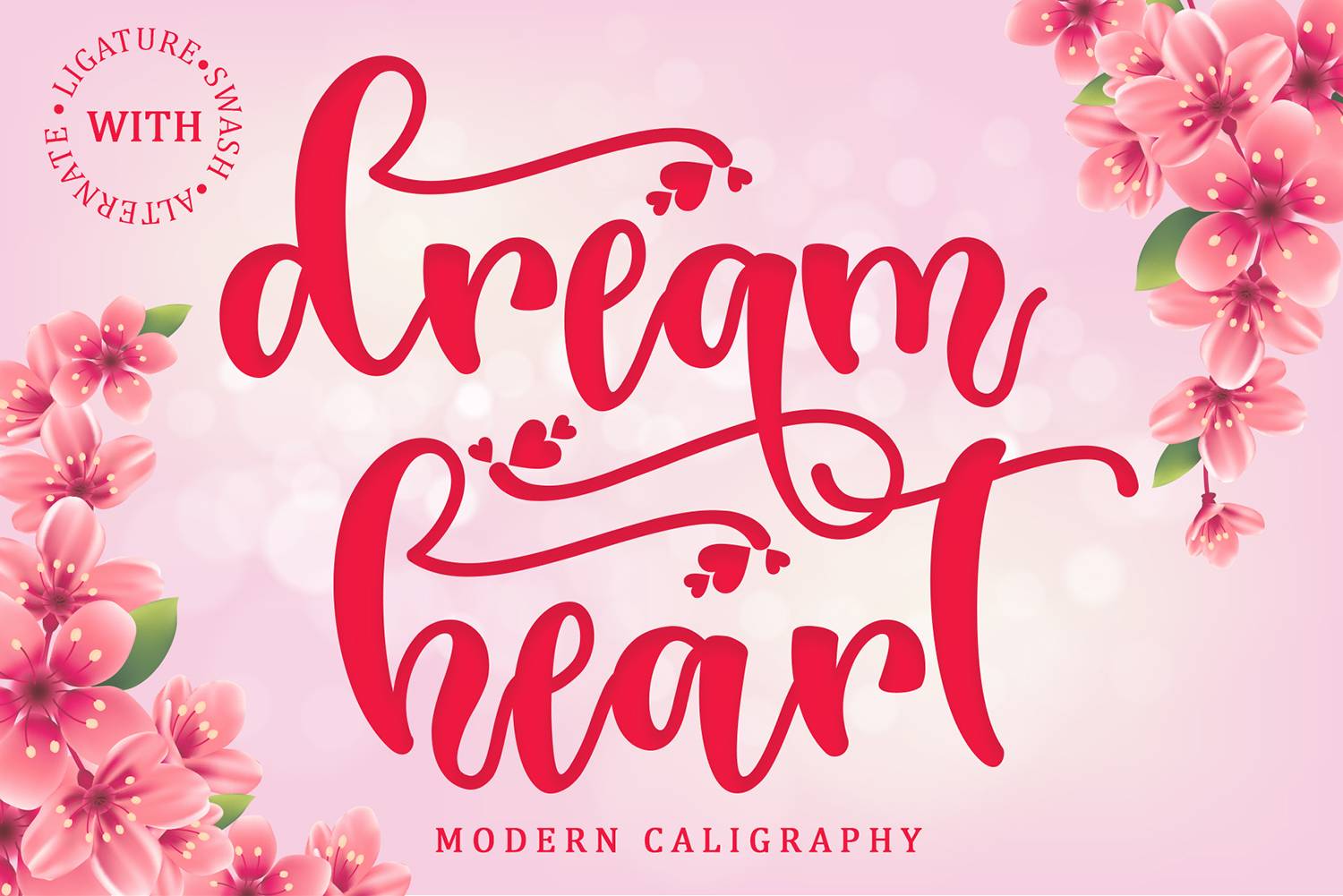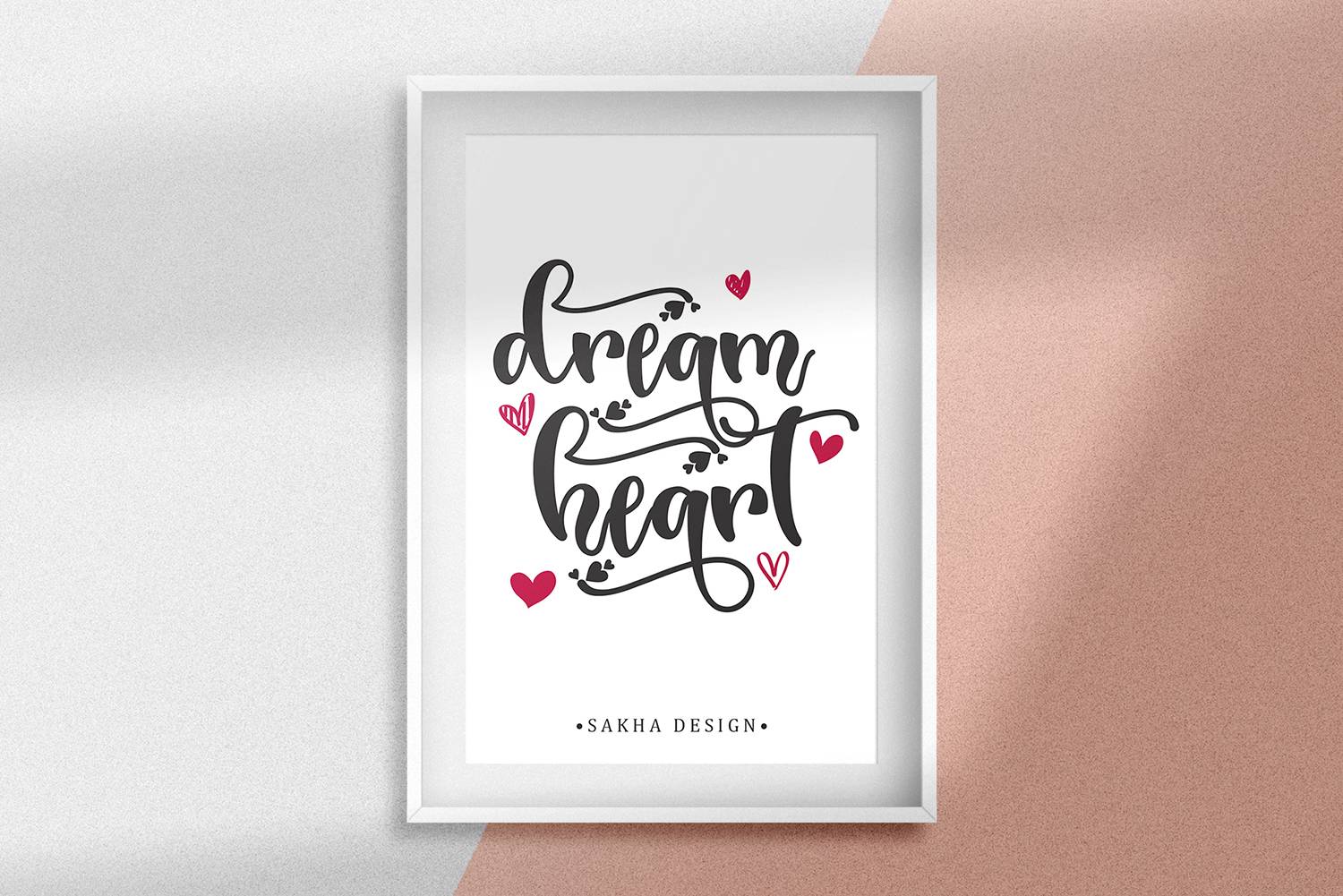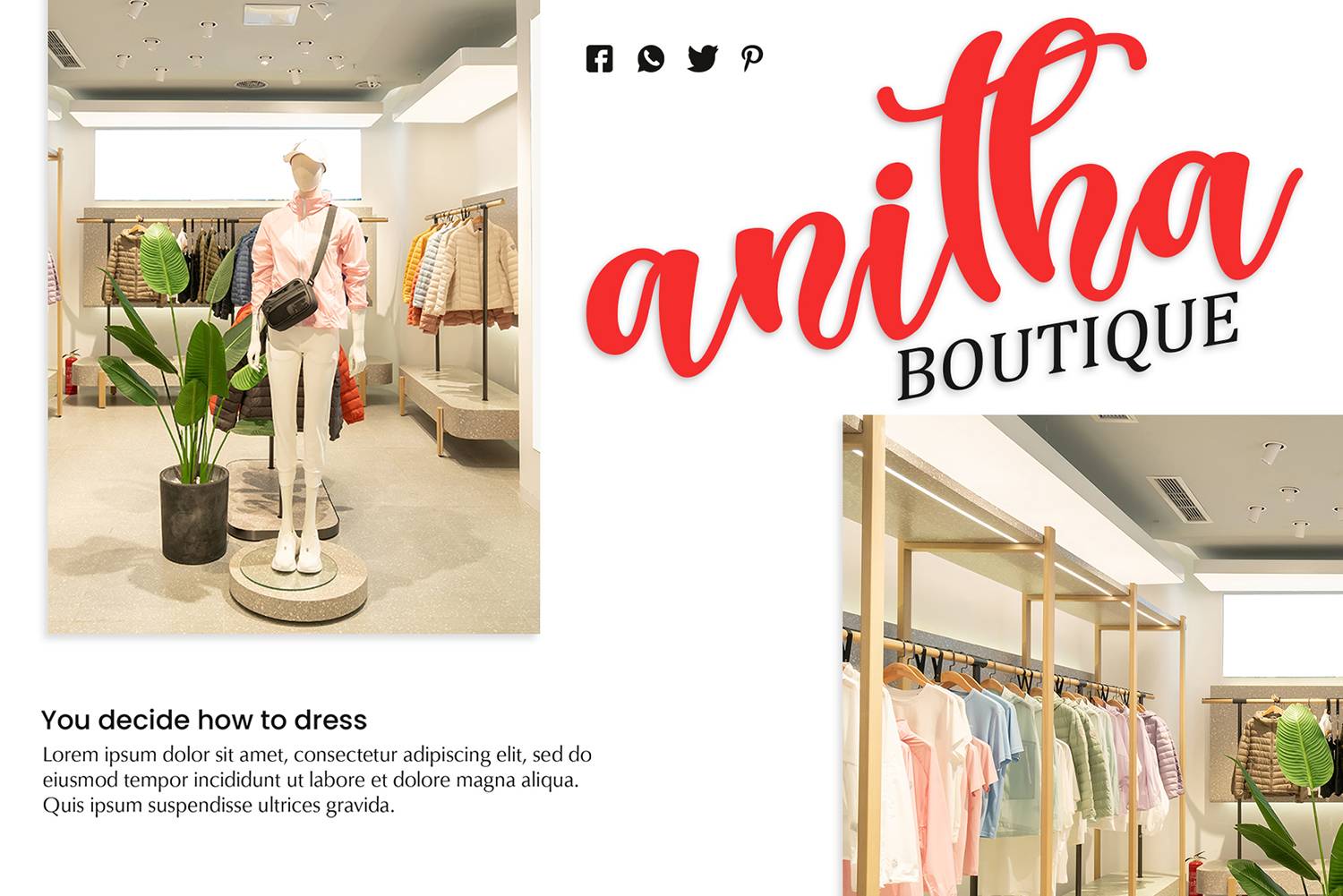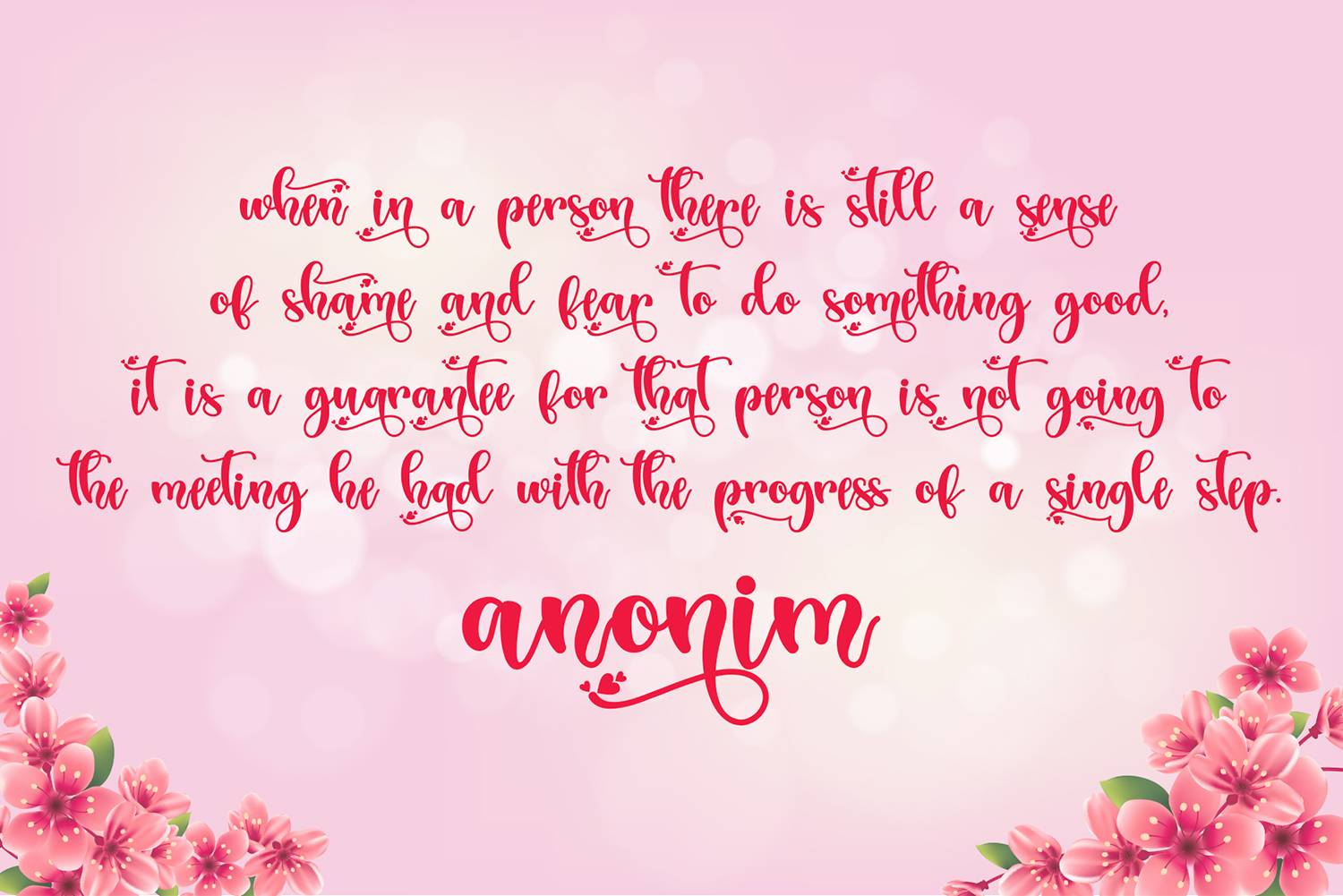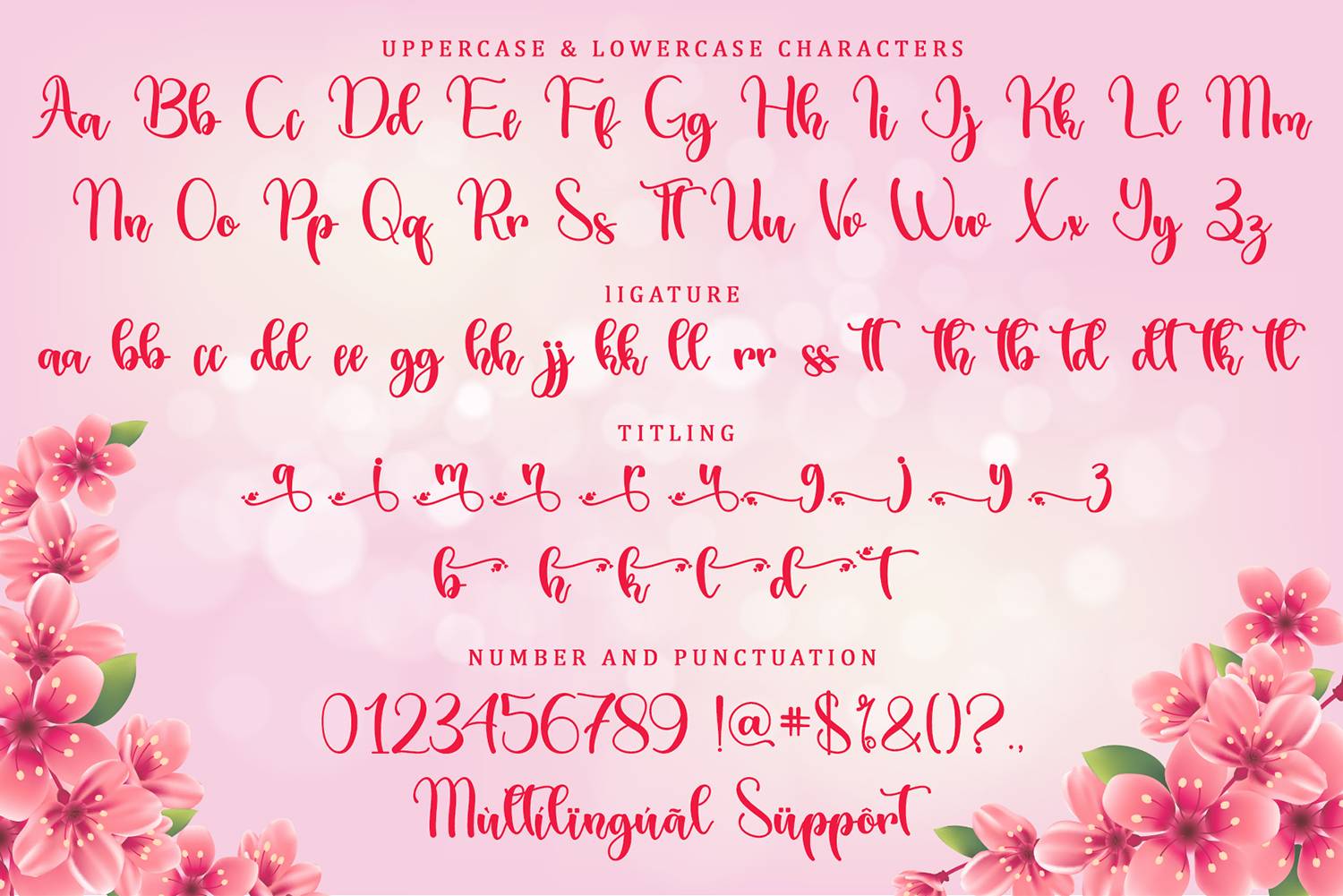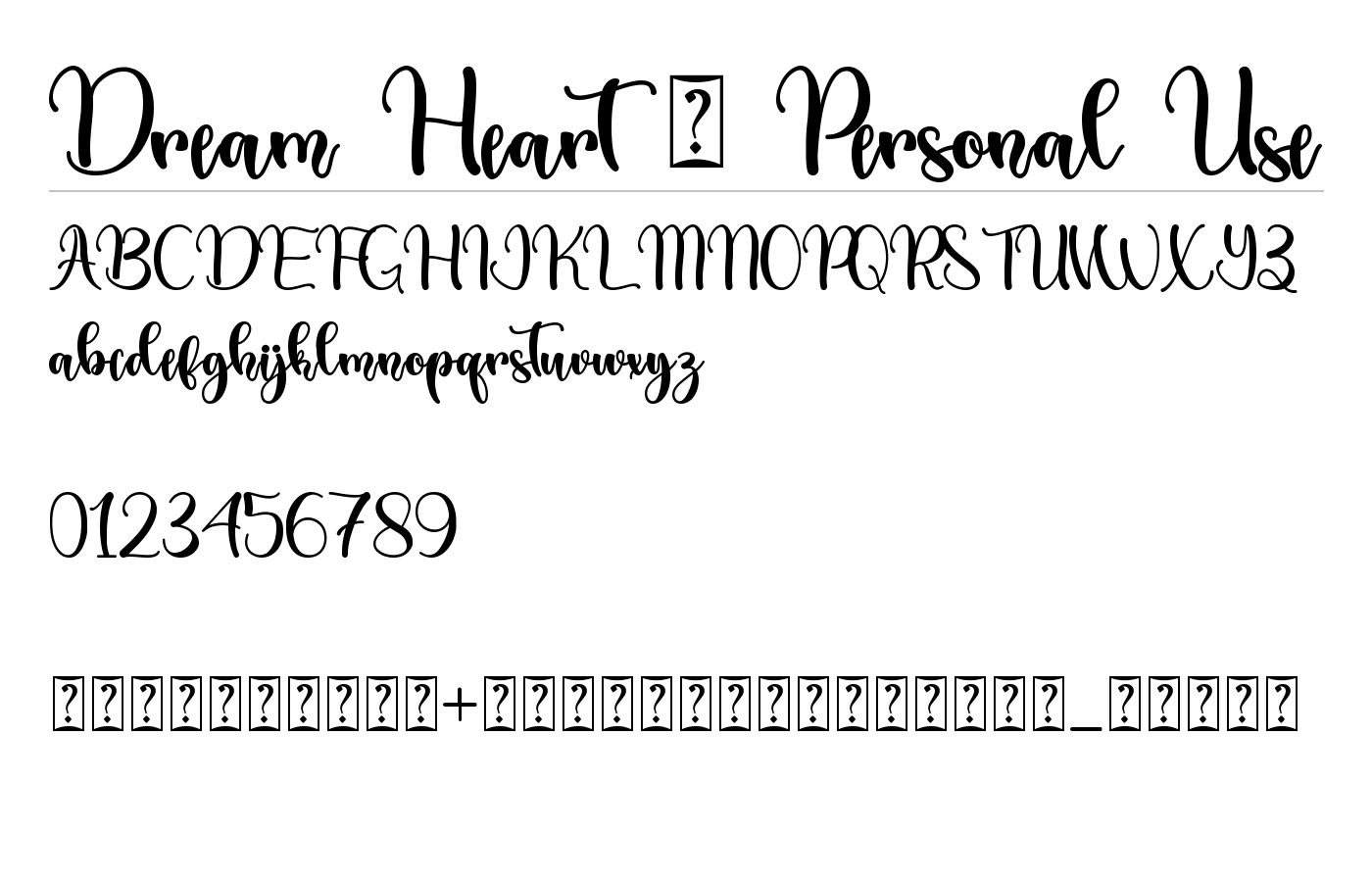
Dream Heart is a charming handwritten script font featuring smooth, flowing strokes with a balanced weight that feels warm and inviting. Its playful yet elegant letterforms make it perfect for personal projects, greeting cards, and branding that seeks a friendly, heartfelt touch. This font shines in decorative uses, adding a cozy and creative vibe to headlines and logos.
Dream Heart Font
About Dream Heart Font
| Font family | Dream Heart Font |